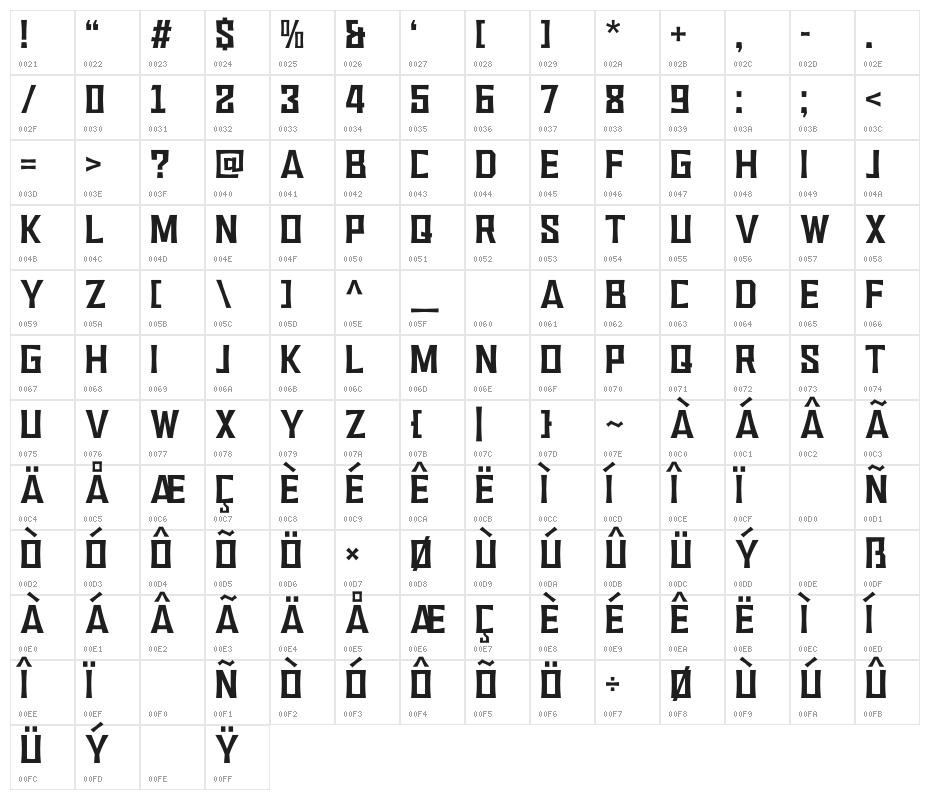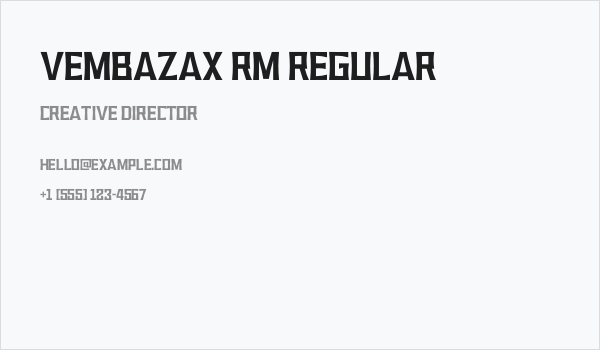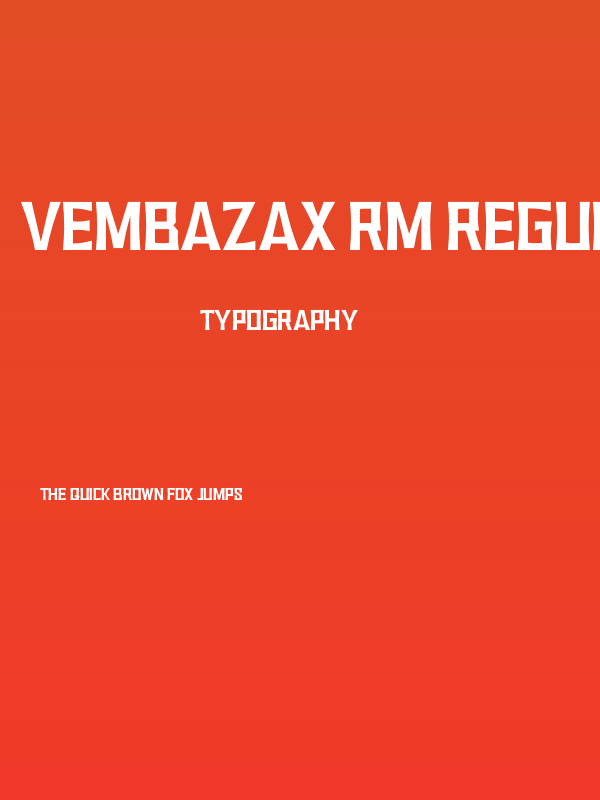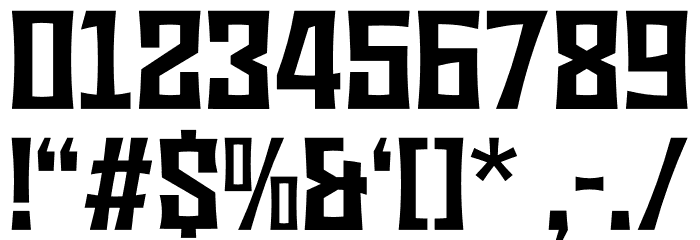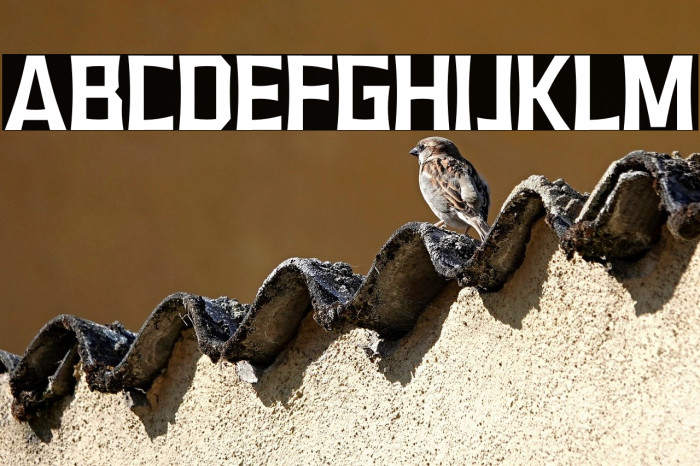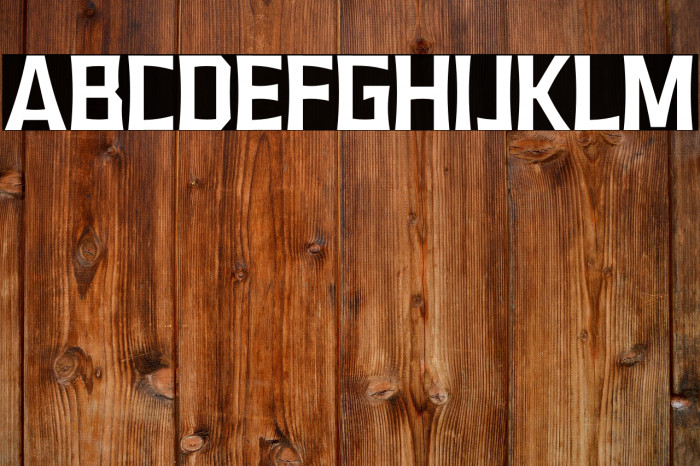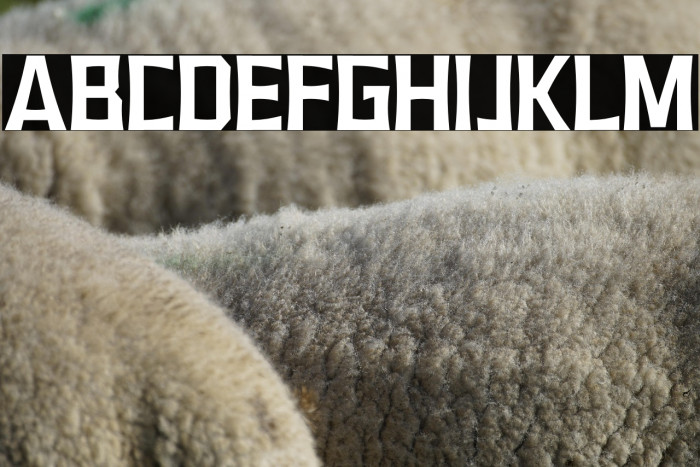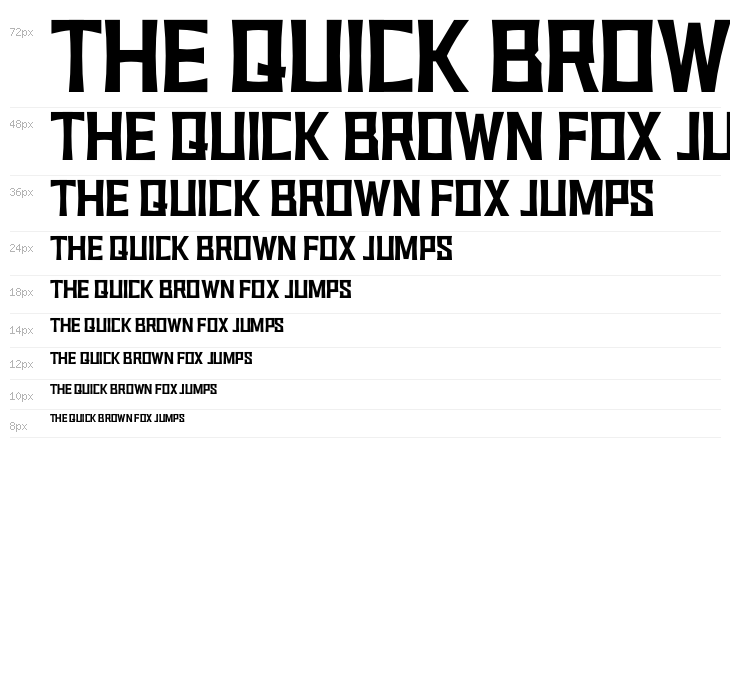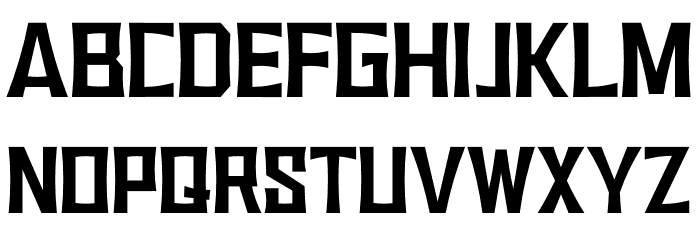
VEMBAZAX RM REGULAR Font
VEMBAZAX RM REGULAR Description
This font features a bold and angular design, characterized by sharp edges and a geometric structure. The uppercase letters are particularly striking, with a consistent height and width that give them a blocky appearance. The lowercase letters maintain this angular style, though they are slightly more compact. Numbers and special characters follow the same design principles, ensuring a cohesive look across all glyphs. The font's unique style makes it ideal for attention-grabbing headlines or titles. Its boldness and distinctiveness lend it well to projects that require a strong visual impact.
| Proposed Projects | Ideal for posters, logos, branding, and any project needing a bold visual impact. |